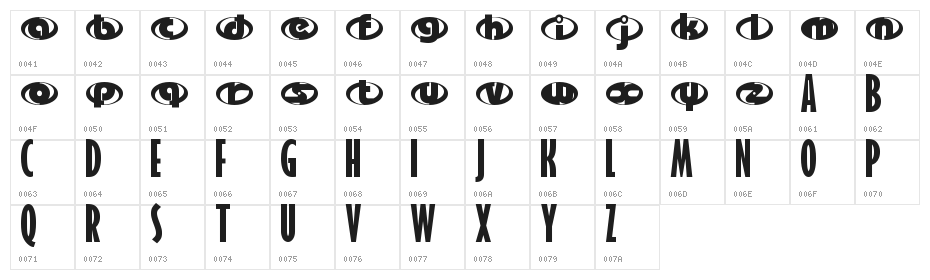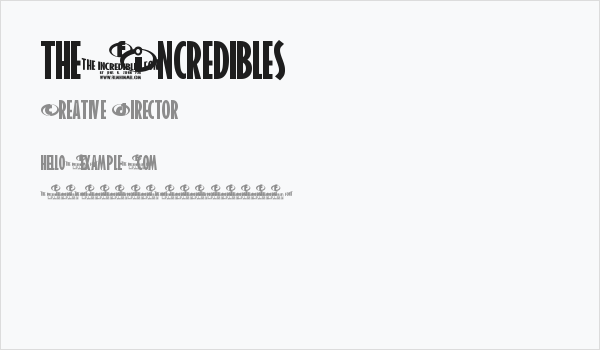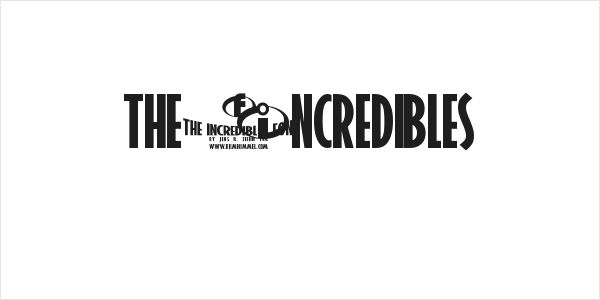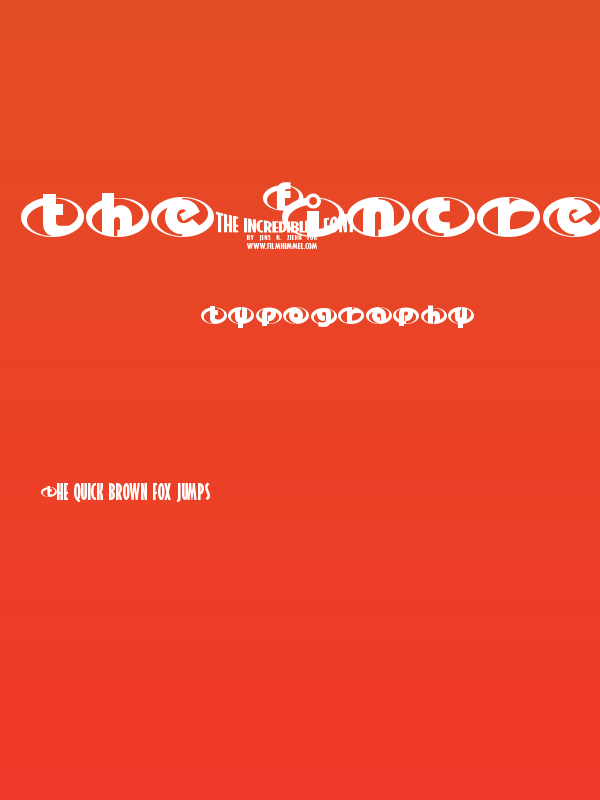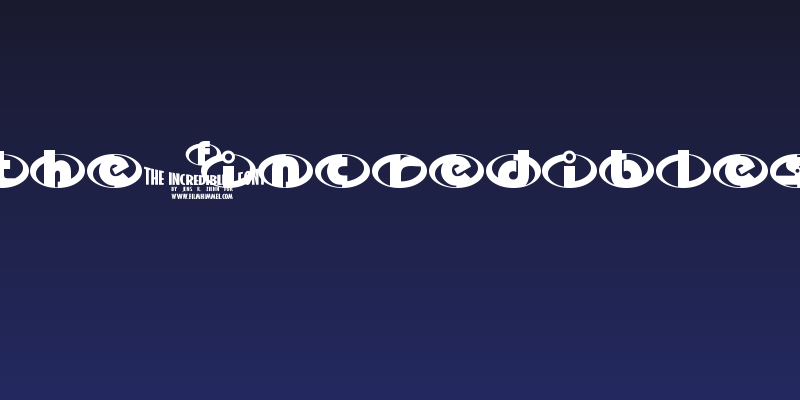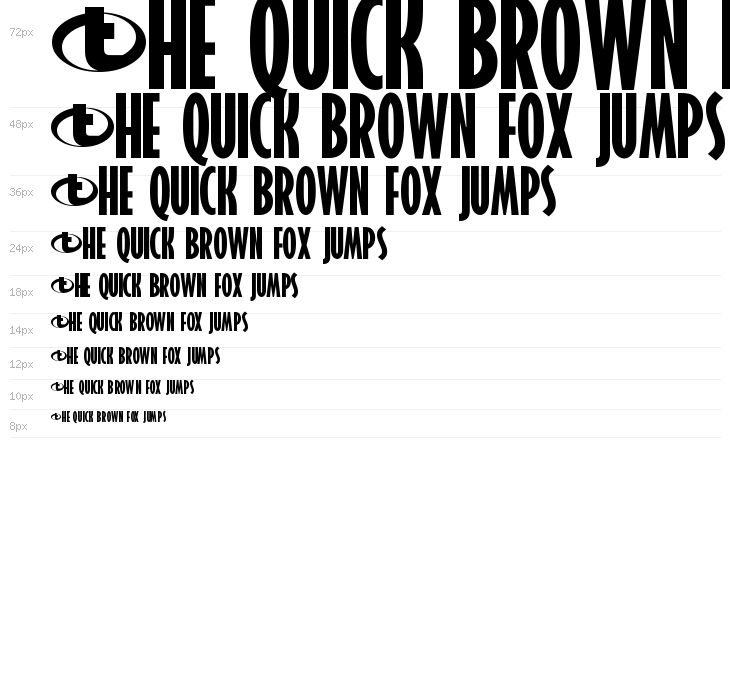
the-Incredibles Font
the-Incredibles Description
This bold and dynamic font features a strong, impactful design with thick, elongated letterforms that convey a sense of power and excitement. The uppercase letters are particularly striking, with a tall and narrow structure that emphasizes verticality. The lowercase letters maintain a consistent style, ensuring readability while retaining the font's unique character. The overall appearance is modern and sleek, making it suitable for attention-grabbing headlines and titles. The font's boldness is complemented by a medium contrast in stroke thickness, adding to its visual appeal.
Proposed ProjectsThis font is perfect for movie posters, branding for action-packed products, or any project requiring a bold, attention-grabbing typeface.